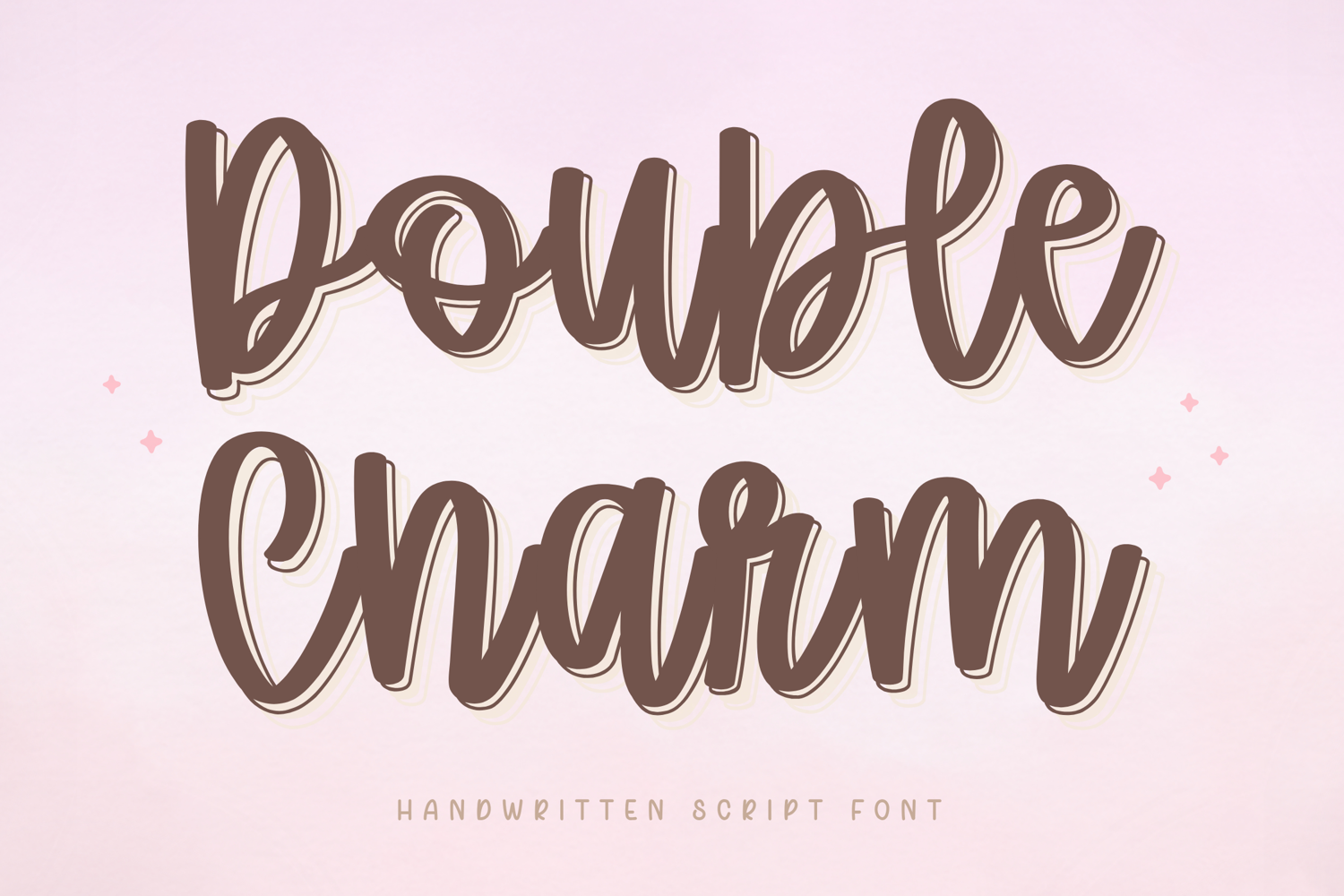
Double Charm - Handwritten Script Font
Double Charm is a stylish handwritten script font with a soft double-line effect that adds depth and personality to your designs. Its smooth curves and playful strokes create a modern yet friendly look, making it perfect for both aesthetic and eye-catching projects.
With its unique layered style, Double Charm stands out beautifully in branding, social media, and craft designs while remaining easy to read and versatile across different uses.
Double Charm is designed to give your text a fun, dimensional look without being too bold or overwhelming, making it perfect for modern feminine and aesthetic designs.